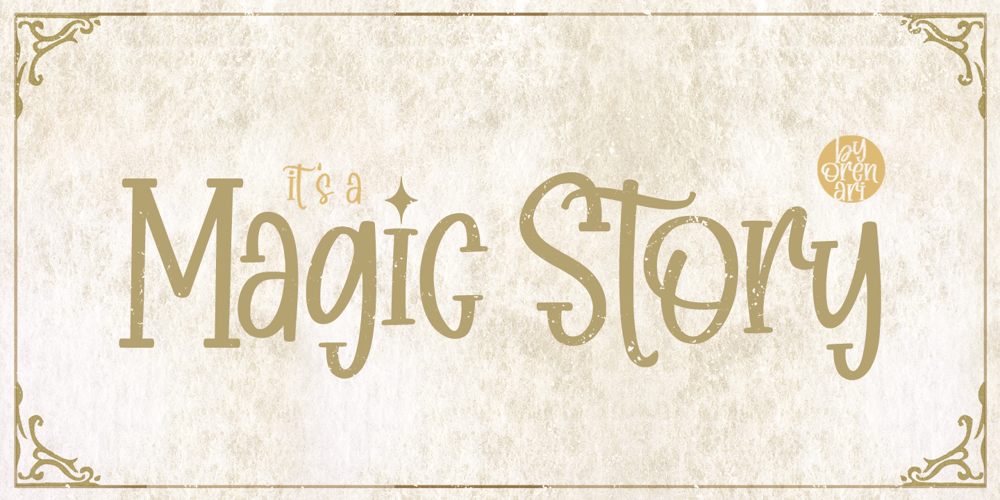
Magic Story Font Family was designed by Lia Wijayanti and published by Orenari. Magic Story contains 1 styles and family package options. Welcome to Magic Story!Magic Story is a beautiful and magical font. It was made inspired by vintage magical story book. This will bring you to the world of fairy tales vibes.Touch your craft and design projects with this fantastic font and create a lovely works you’re proud of.